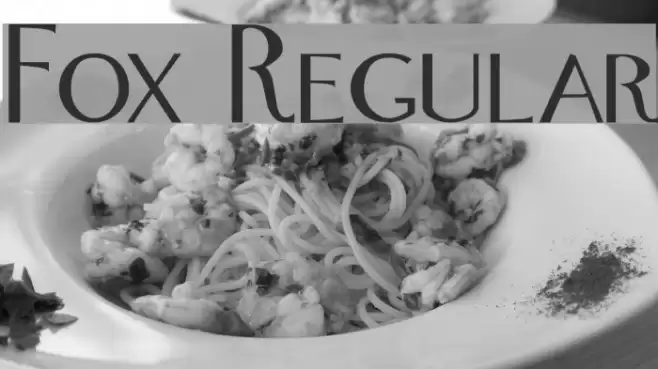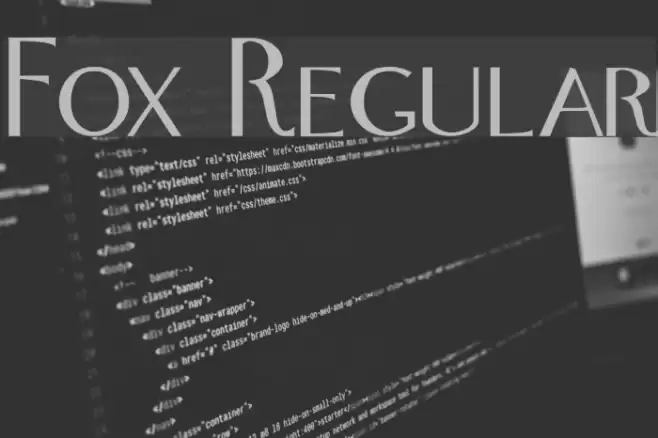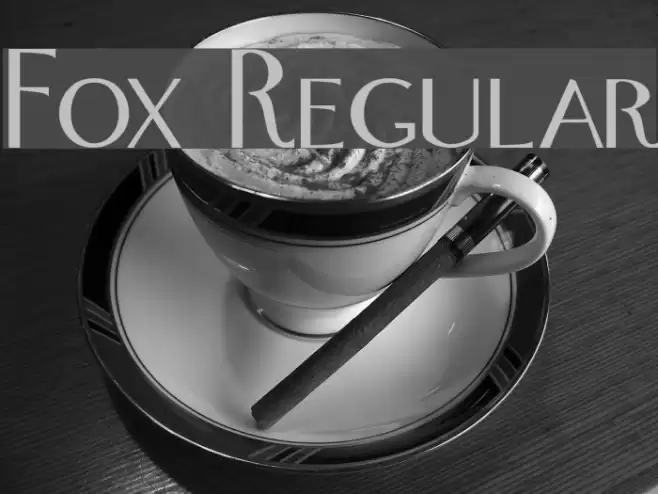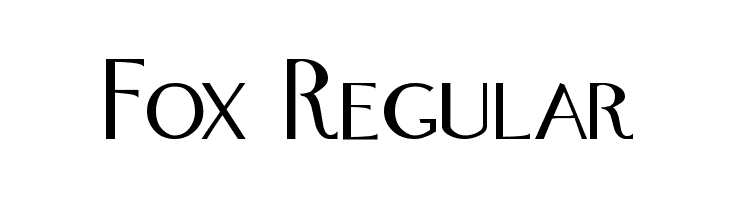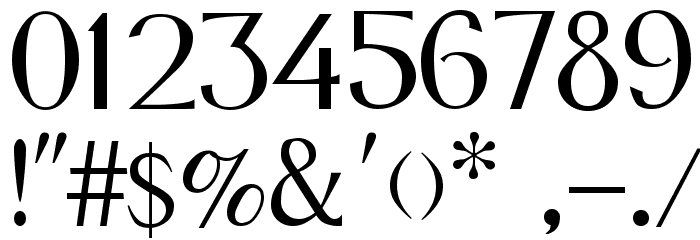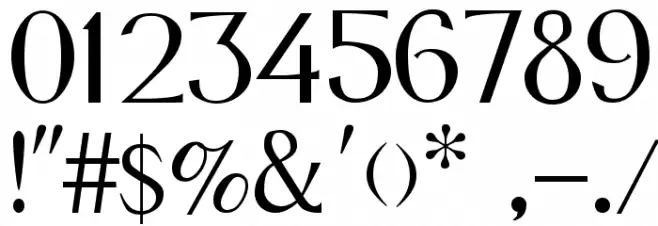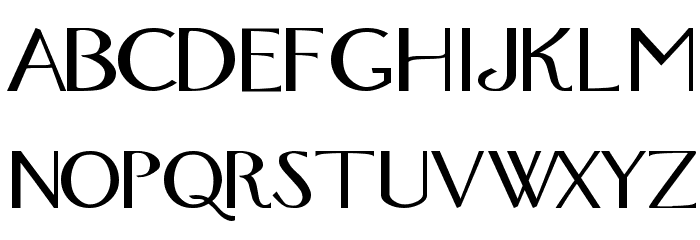
Fox Regular Font
Fox Regular Description
This font exhibits a unique blend of modern and classic elements, characterized by its sharp, angular serifs and clean lines. The uppercase letters are bold and commanding, with a distinct geometric influence that adds a contemporary flair. The lowercase letters maintain a consistent style, offering a harmonious balance between the uppercase and lowercase forms. The numerals are clear and legible, designed with a slight curvature that complements the overall aesthetic. Special characters are thoughtfully crafted, ensuring versatility across various applications. This font's design is both striking and functional, making it suitable for a wide range of creative projects.
A modern serif font with sharp angles and geometric influences from Uncategorized fonts.